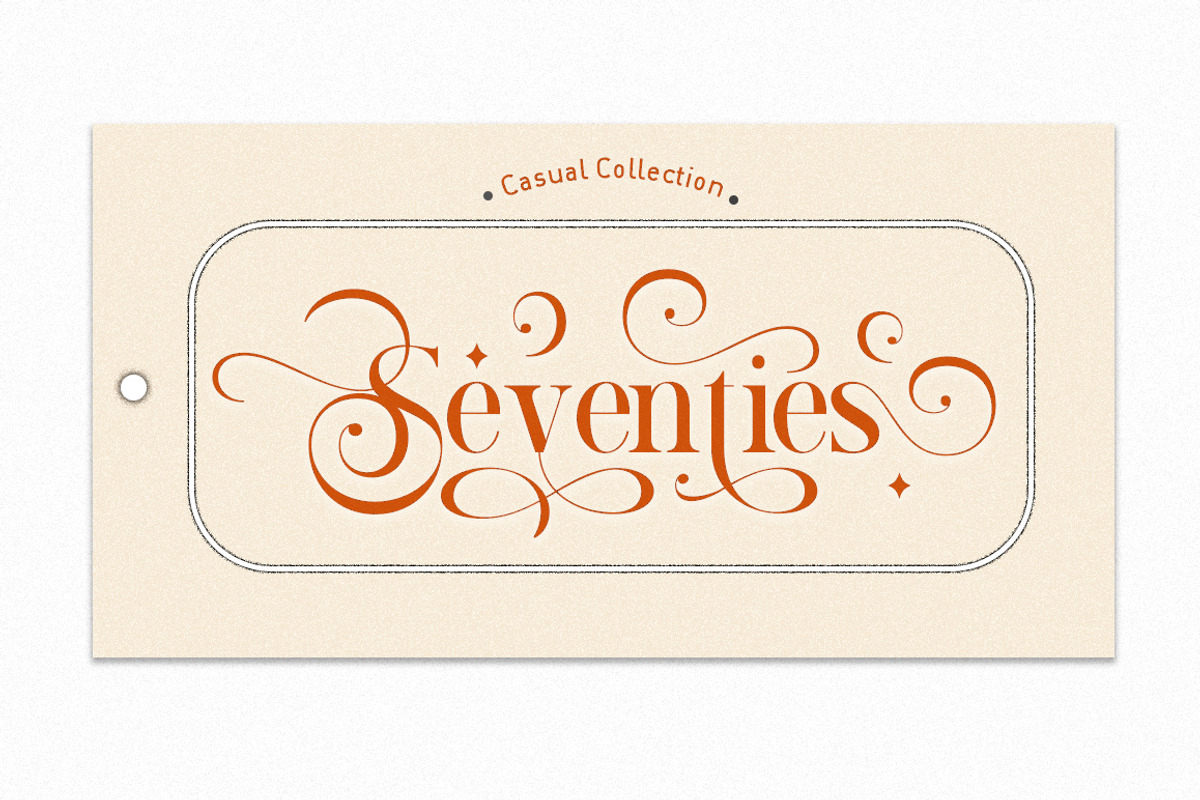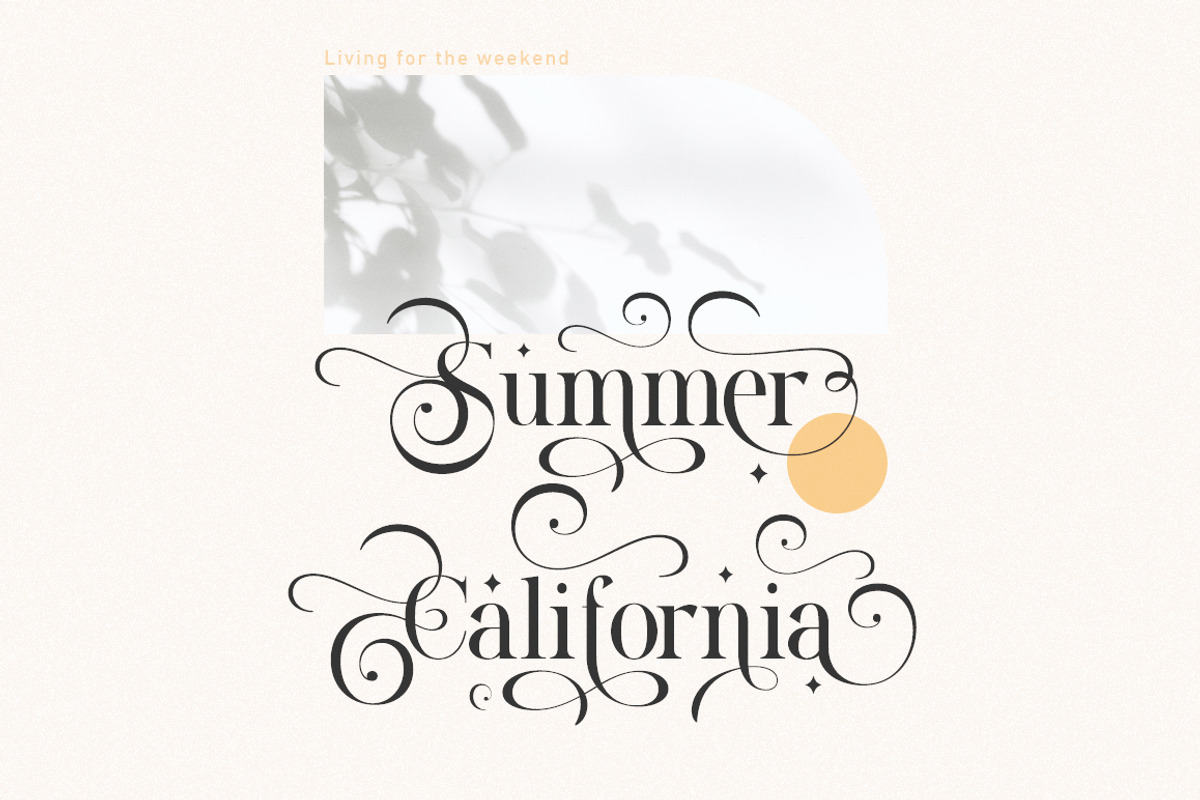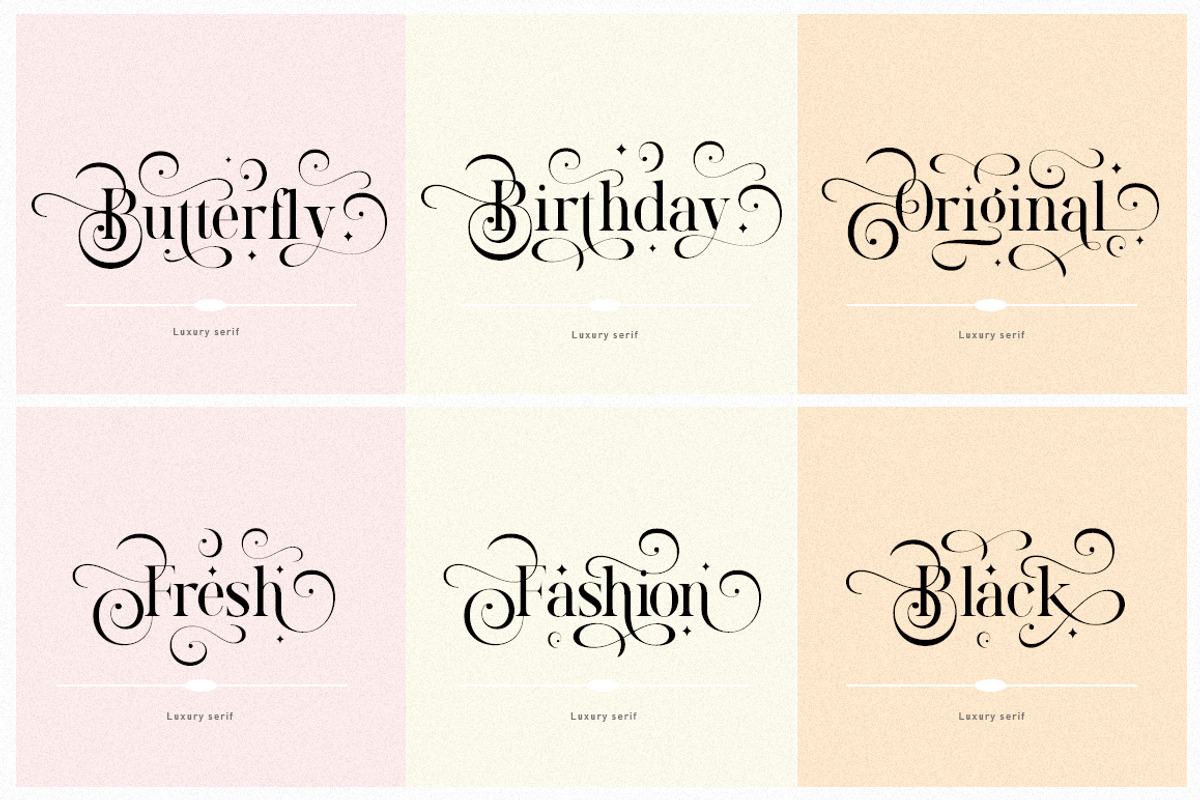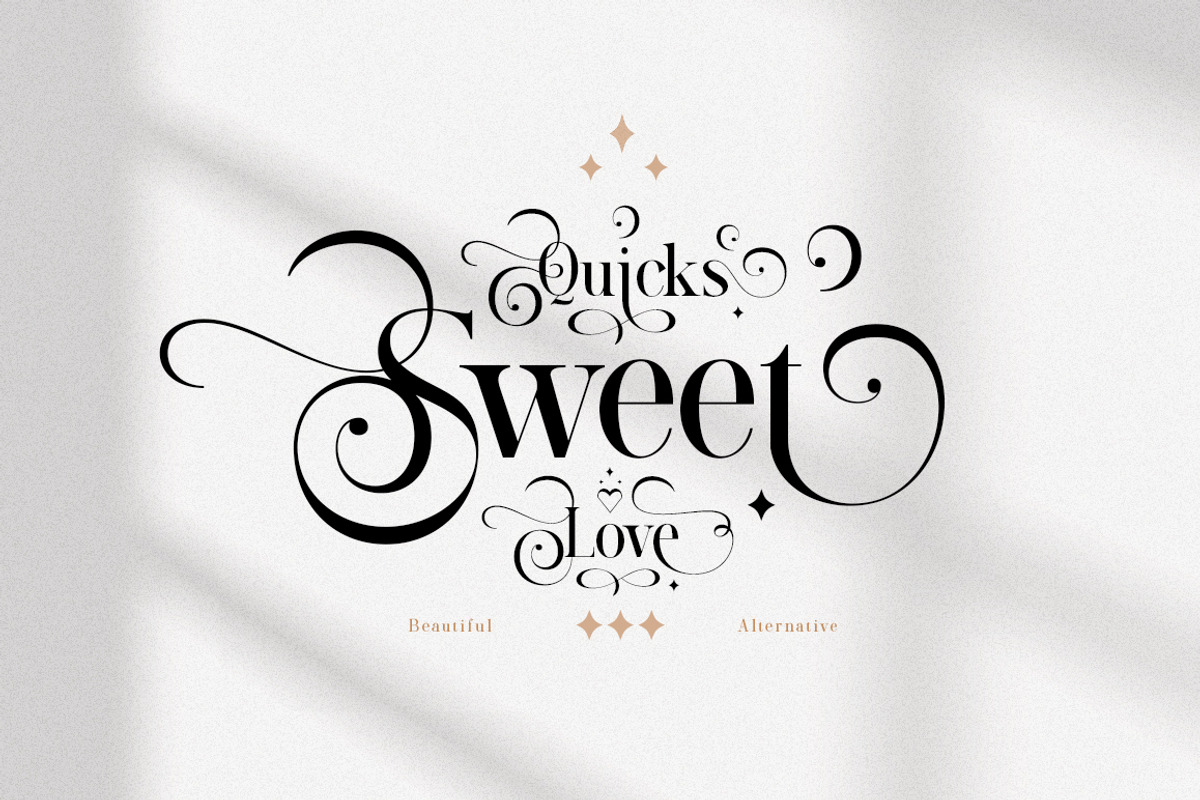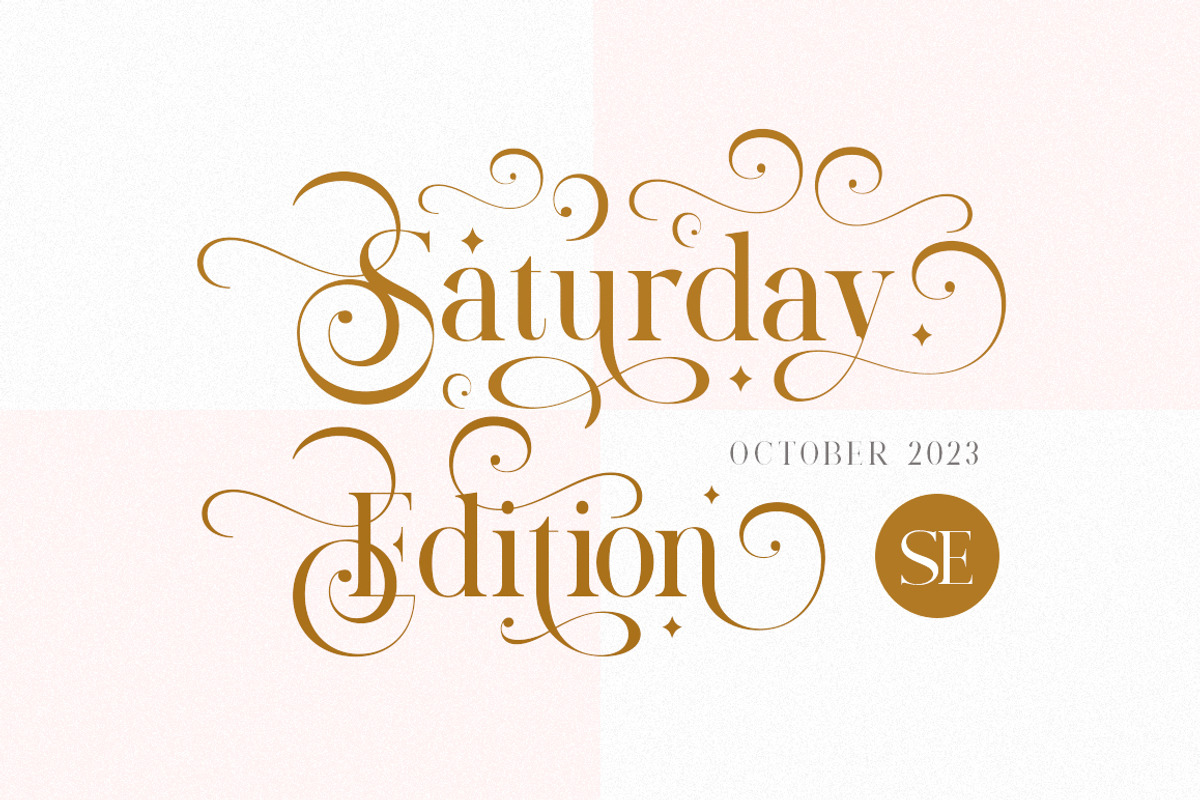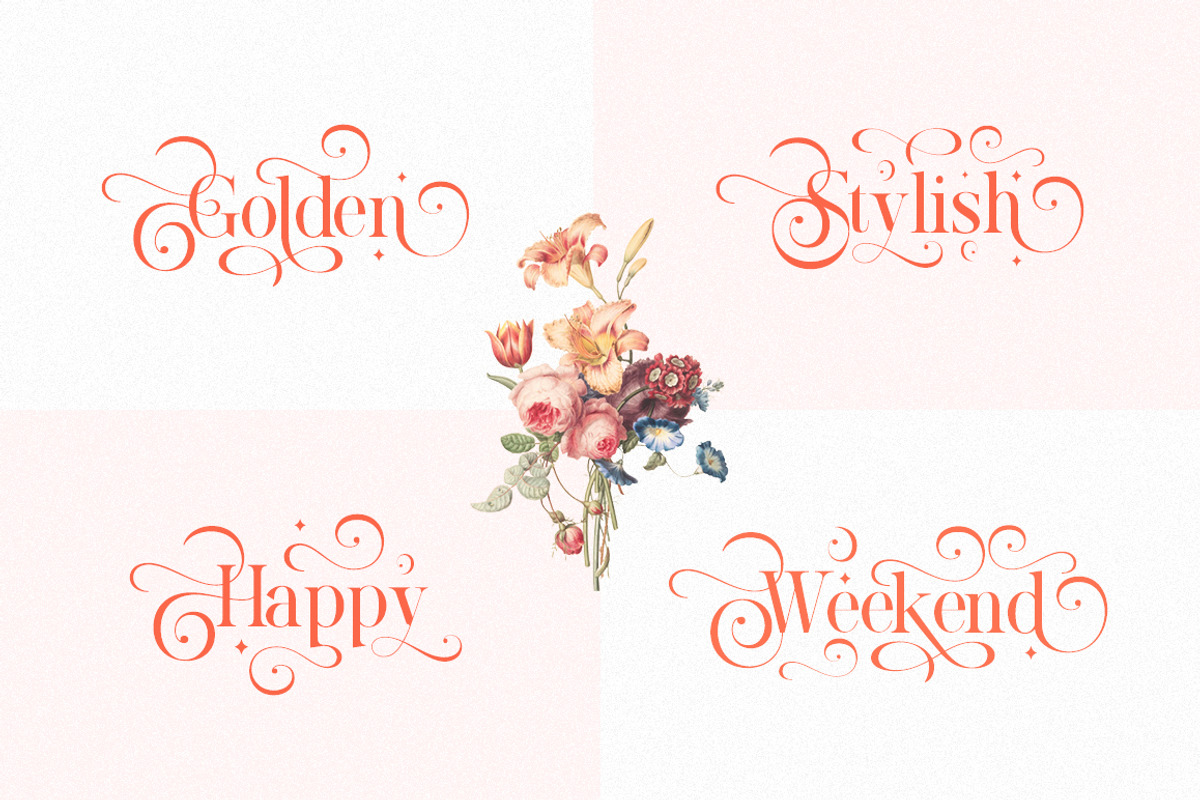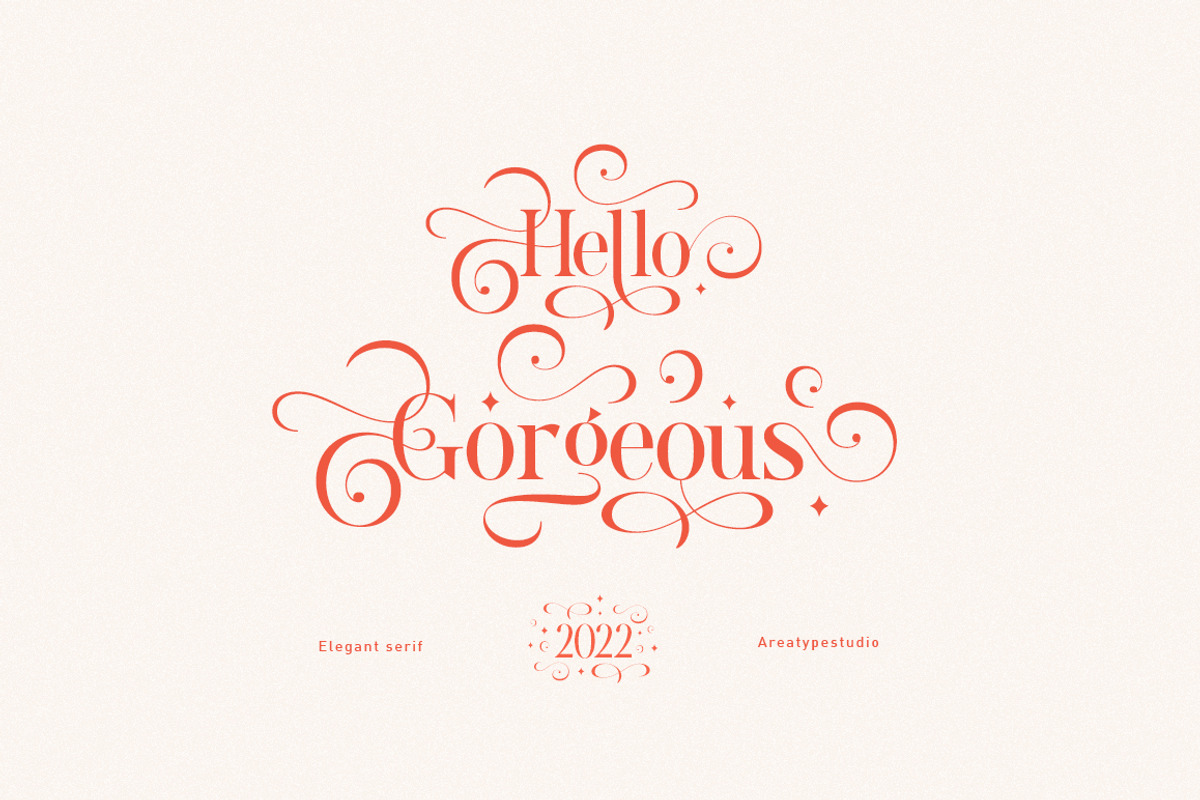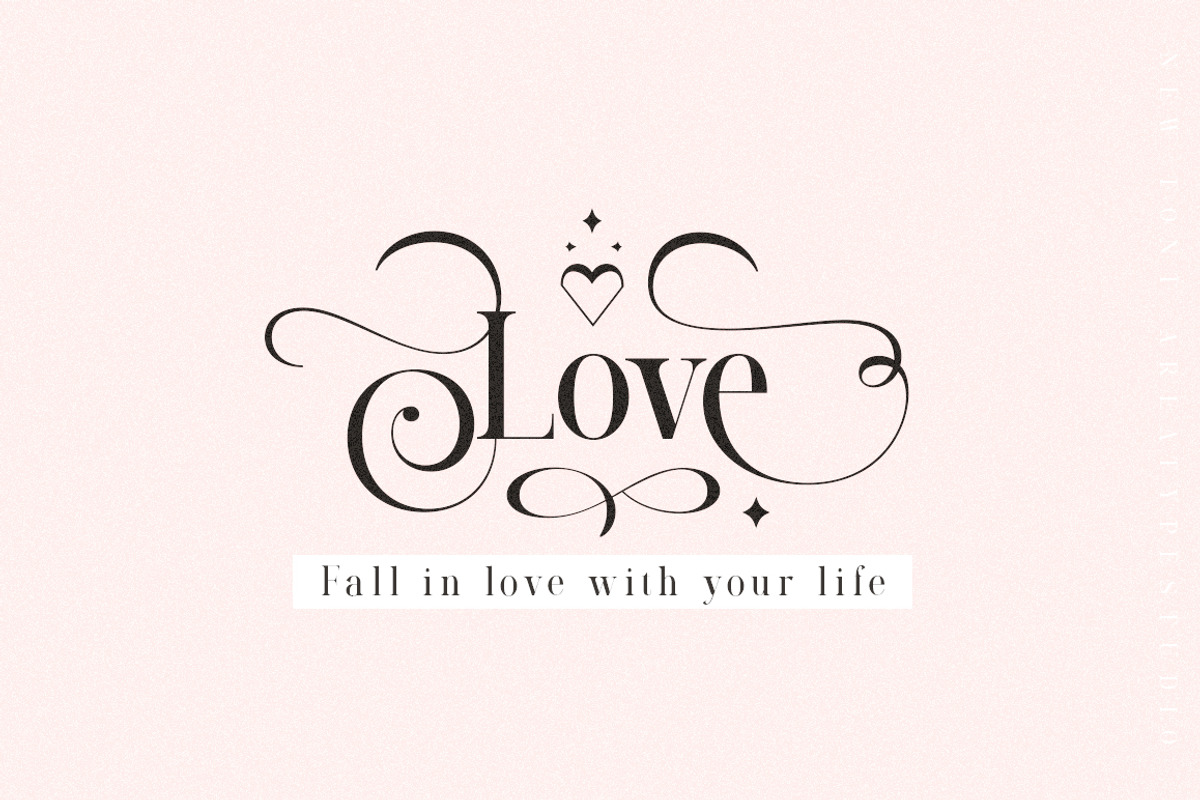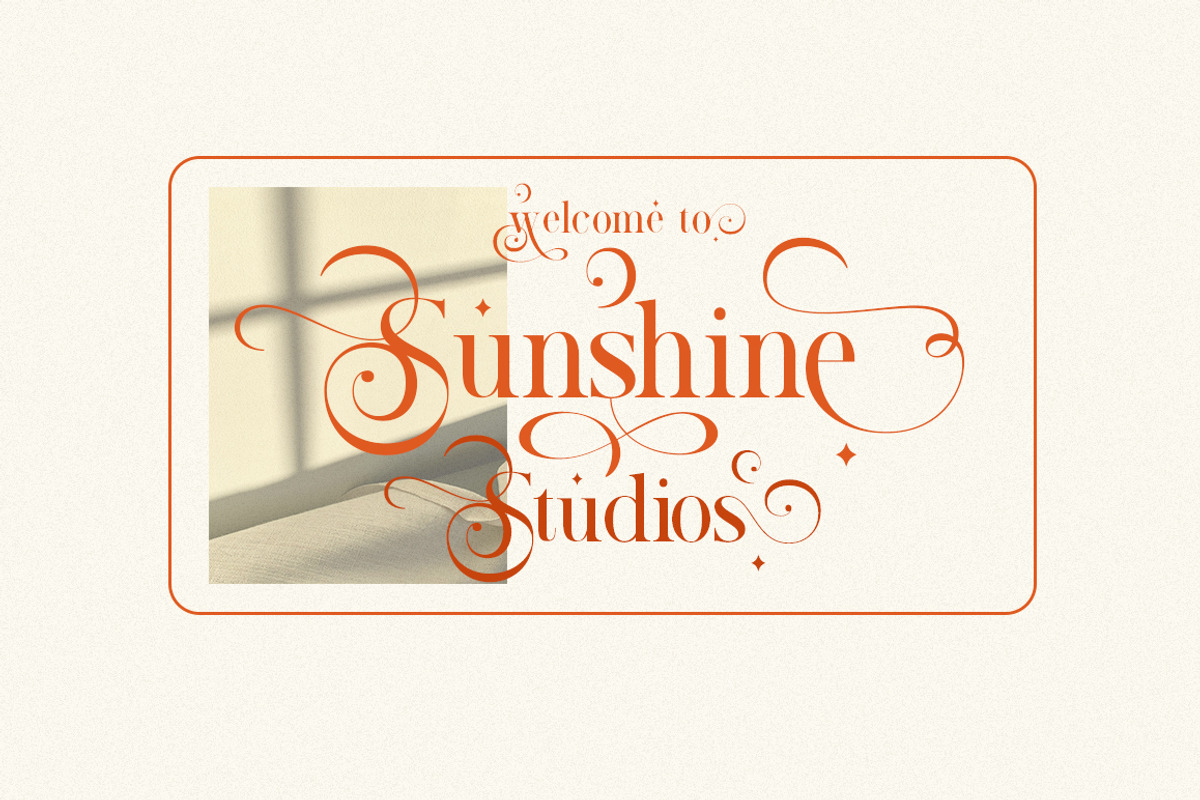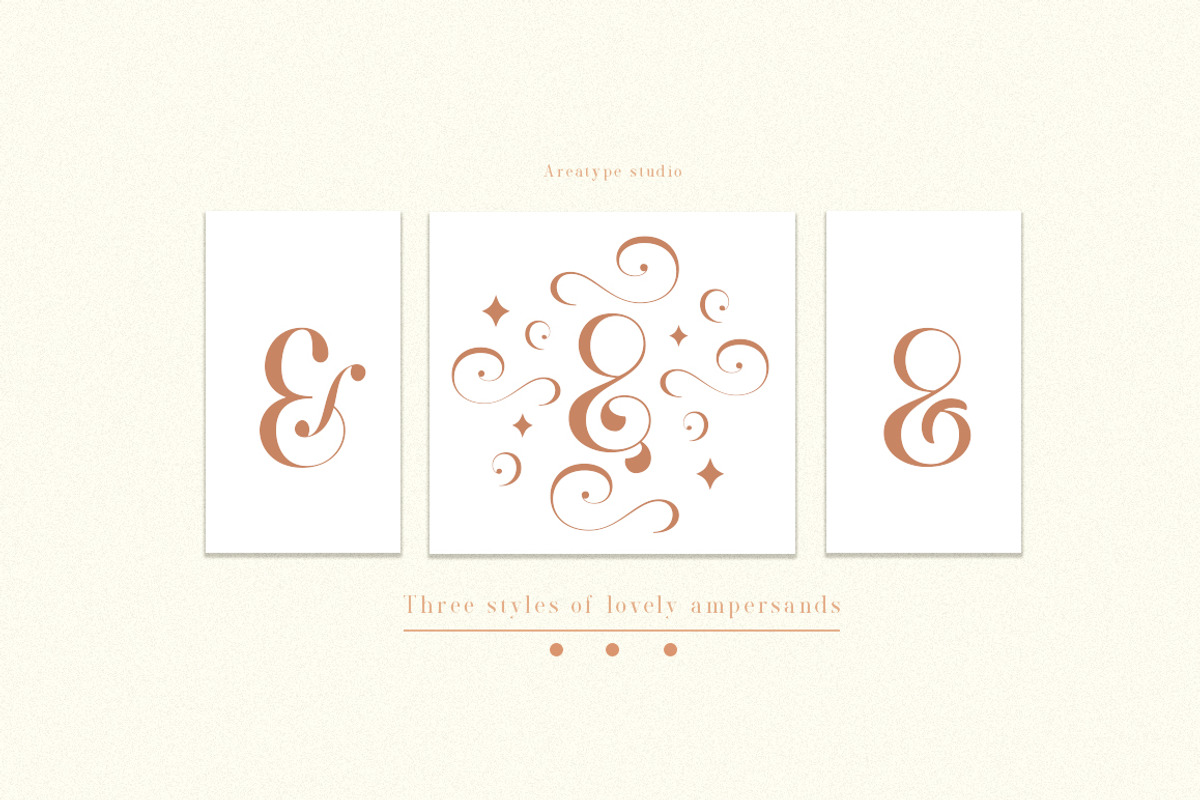
Quicks sweet love
Quicks sweet love is a very versatile font. perfect for magazine images, to wedding invitations, to branding, poster design, and more.
Adding beautiful ligatures and alternatives to make your typography truly unique.